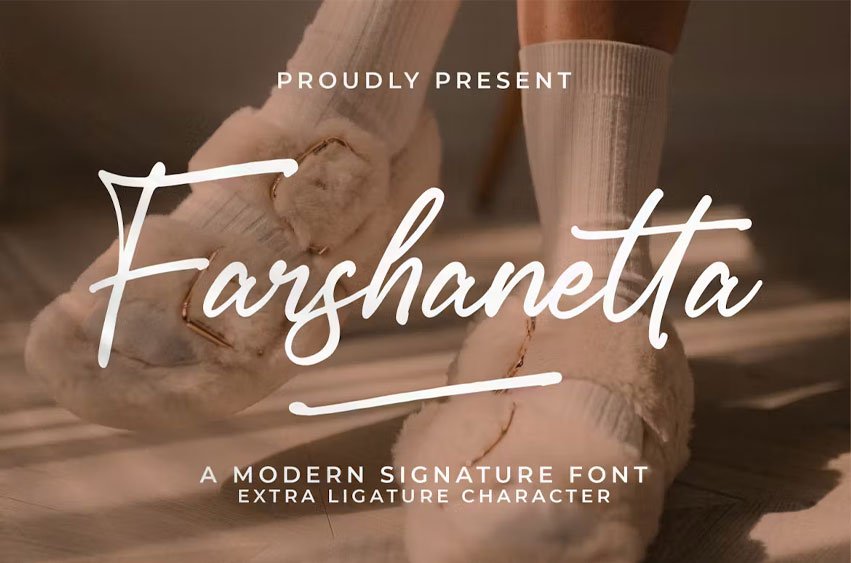
Farshanetta Font Modern Signature Font, from Integritype Studio, is a premium Script Font, perfect for any project that requires a distinctive, premium feel.